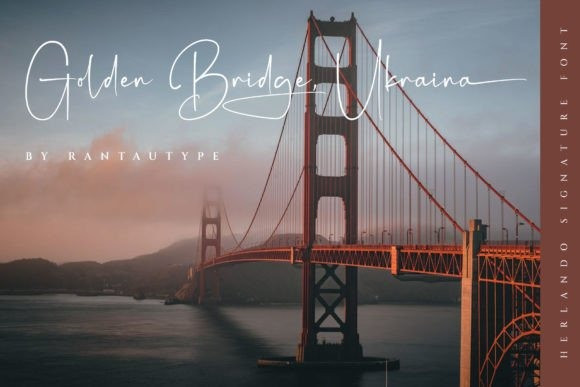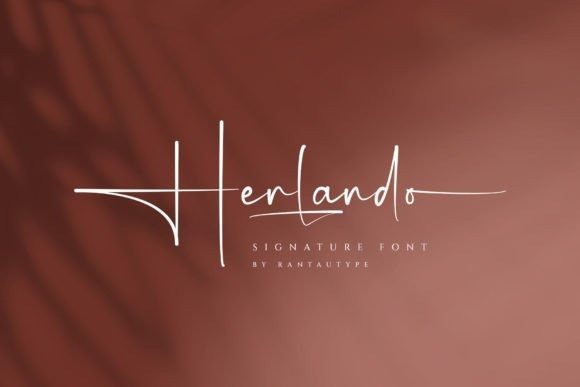
Herlando Font
Herlando Font feels equally charming and elegant. It looks stunning on wedding invitations, thank you cards, quotes, greeting cards, logos, business cards, and every other design which needs a handwritten touch